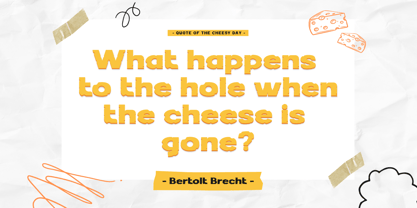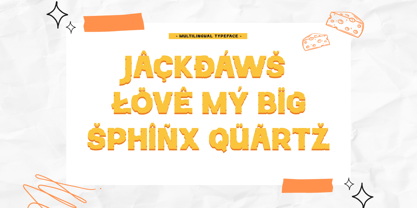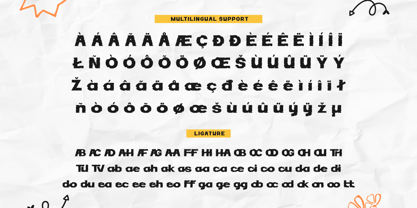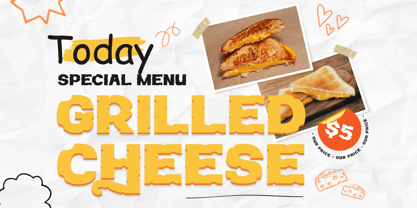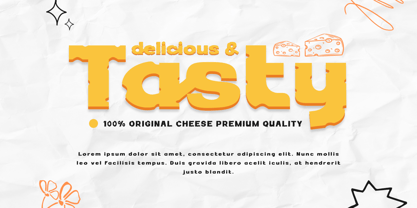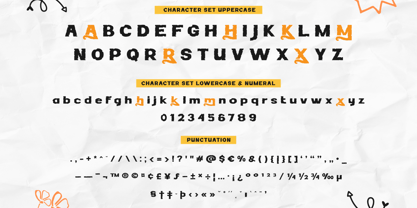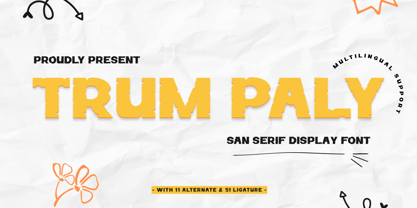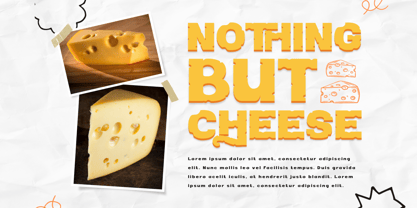
Trum Paly
by Trabas Kriya
The Trum Paly Font Family was designed by Murozakul Akhsan and published by Trabas Kriya. Trum Paly contains 1 styles. More about this family
Trum Paly is a font that stands out from the crowd. This display font is all about making a statement. Its bold, distinctive characters make it perfect for creating eye-catching headlines and logos that demand attention. With Trum Paly, your designs won’t just be seen, they’ll be remembered.
- All glyphs and Feature
- Fonts include Multilingual: Support for 85 languages.
Afrikaans, Albanian, Asu, Basque, Bemba, Bena, Breton, Catalan, Chiga, Cornish, Croatian, Czech, Danish, Dutch, Embu, English, Esperanto, Estonian, Filipino, Finnish, French, Friulian, Galician, Gusii, Hungarian, Indonesian, Irish, Italian, Kabuverdianu, Kalenjin, Kamba, Kikuyu, Kinyarwanda, Latvian, Lithuanian, Lower, Sorbian, Luo, Luxembourgish, Luyia, Machame, Makhuwa-Meetto, Makonde, Malagasy, Maltese, Manx, Meru, Morisyen, North, Ndebele, Norwegian Bokmål, Norwegian Nynorsk, Nyankole, Oromo, Polish, Portuguese, Quechua, Romanian, Romansh, Rombo, Rundi, Rwa, Samburu, Sango, Sangu, Scottish, Gaelic, Sena, Serbian, Shambala, Shona, Slovak, Slovenian, Soga, Somali, Spanish, Swahili, Swedish, Swiss German, Taita, Teso, Turkish, Upper Sorbian, Uzbek (Latin), Volapük, Vunjo, Walser, Zulu.